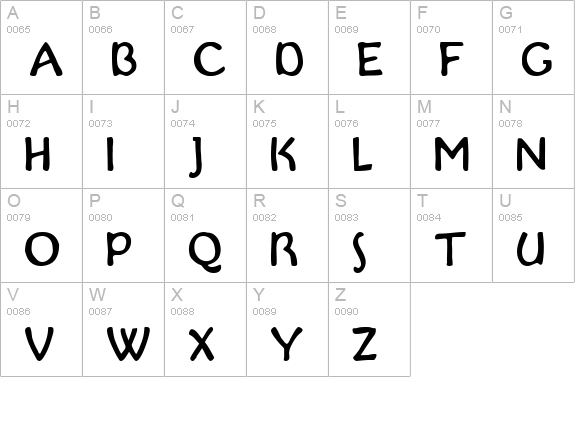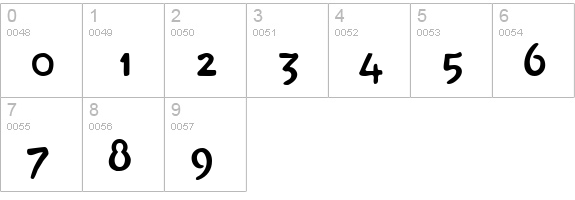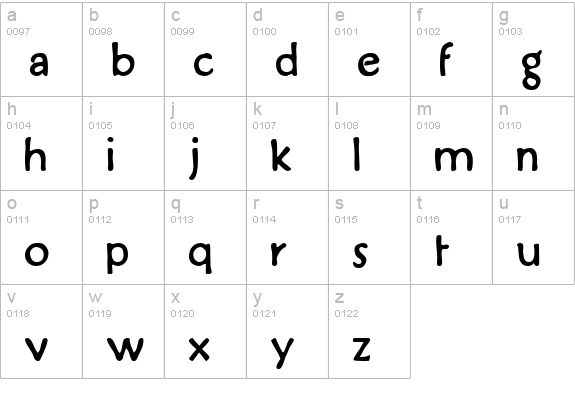
Thanksgiving Font Details
Introducing Thanksgiving Font - a beautifully crafted, versatile typeface that captures the essence of the Thanksgiving season in every letter. With its intricate details and warm, inviting curves, this font brings to life the spirit of gratitude, togetherness, and celebration that defines this special holiday. Whether you're designing a Thanksgiving greeting card, creating festive invitations for a family gathering, or adding a touch of autumnal charm to your website, Thanksgiving Font is the perfect choice. Its elegant yet playful nature will instantly elevate your designs and create a sense of warmth and joy. What makes Thanksgiving Font even more appealing is that it is completely free! Yes, you read that right. This stunning font is freely available to download at FontsMarket.com. We believe that creativity should be accessible to all, and what better way to spread the holiday cheer than by offering this beautiful font as a gift to designers, artists, and enthusiasts alike. With its wide range of glyphs, including alternates, ligatures, and swashes, Thanksgiving Font offers endless possibilities for customization and personalization. Whether you prefer a more traditional, classic look or want to add a contemporary twist to your designs, this font has you covered. So why wait? Download Thanksgiving Font today from FontsMarket.com and let your creativity soar this holiday season. Whether you're a professional designer or a DIY enthusiast, this font will be your go-to tool for creating stunning Thanksgiving-themed designs that will leave a lasting impression. Get ready to impress your friends, family, and clients with this beautiful, freely available font. Happy designing!